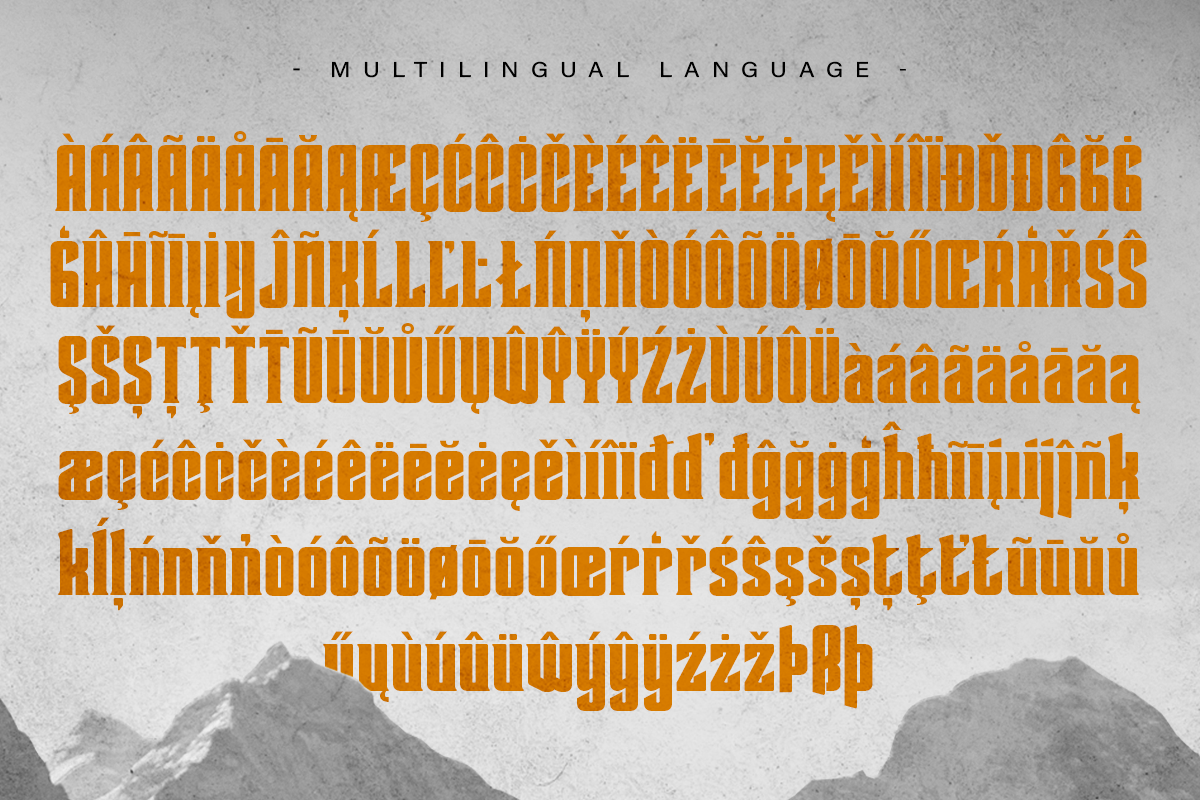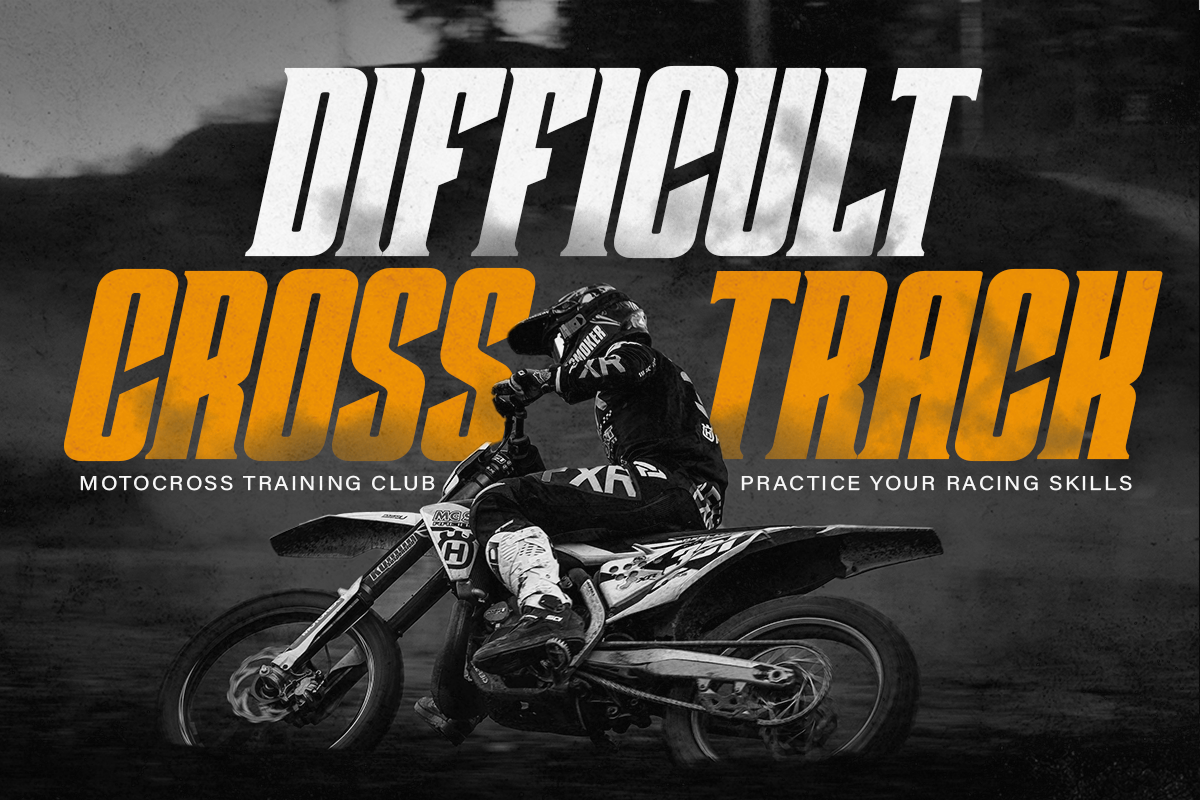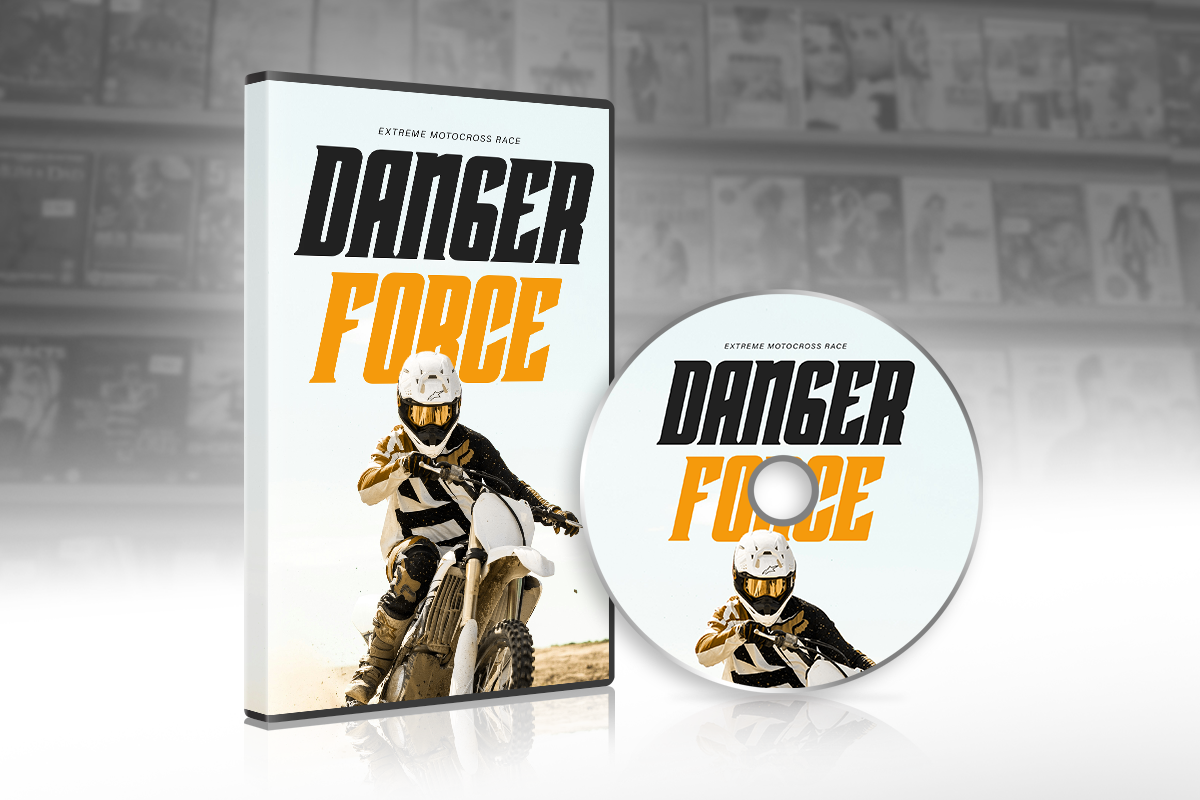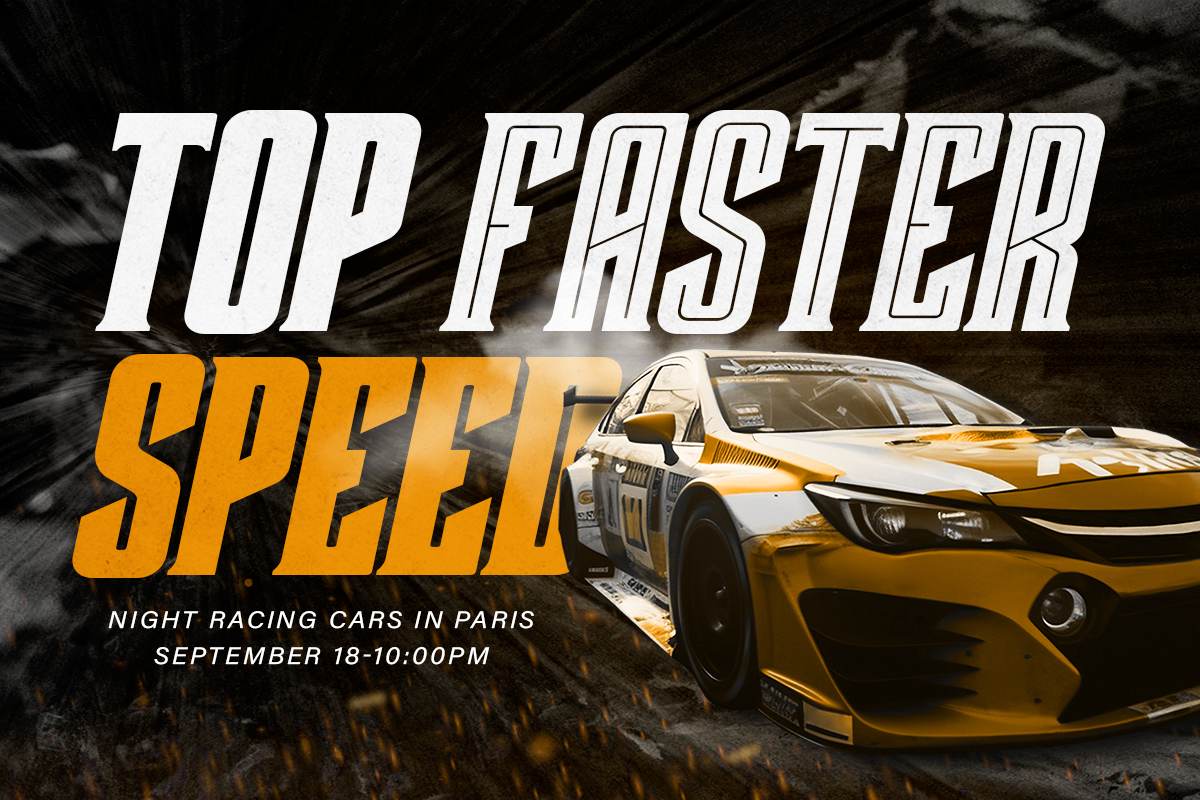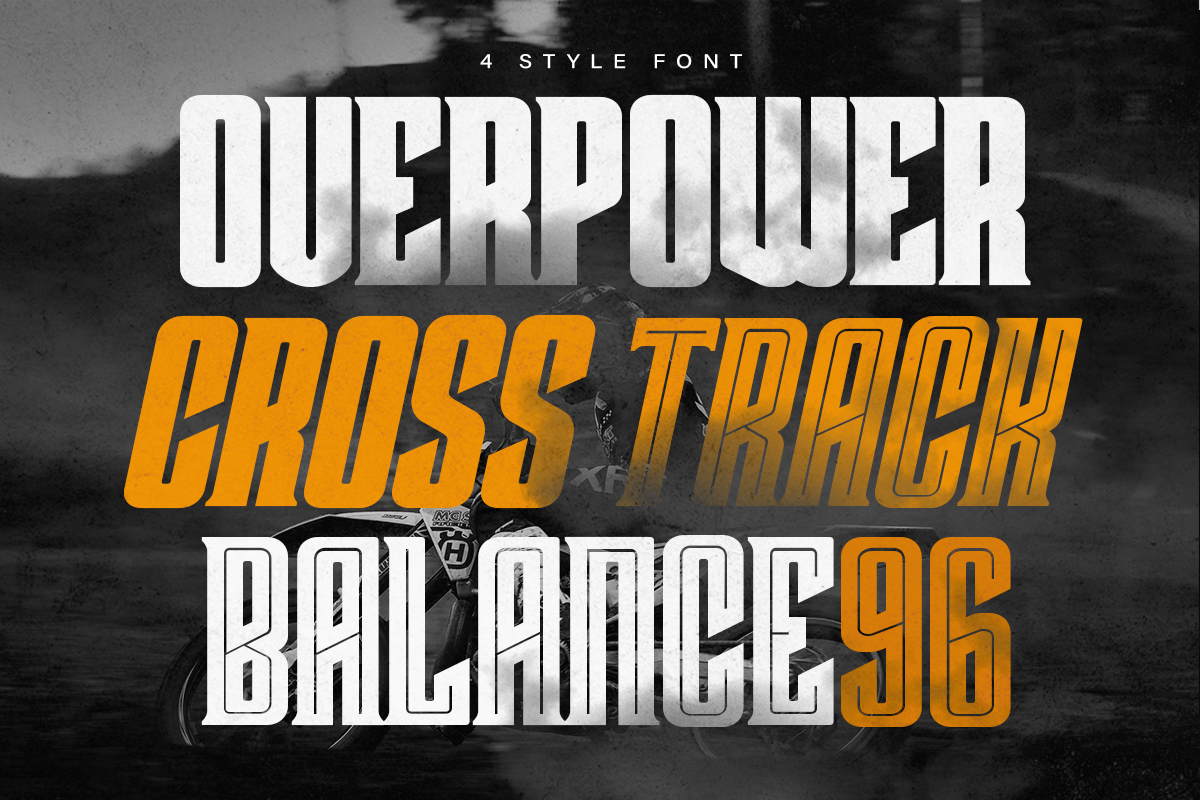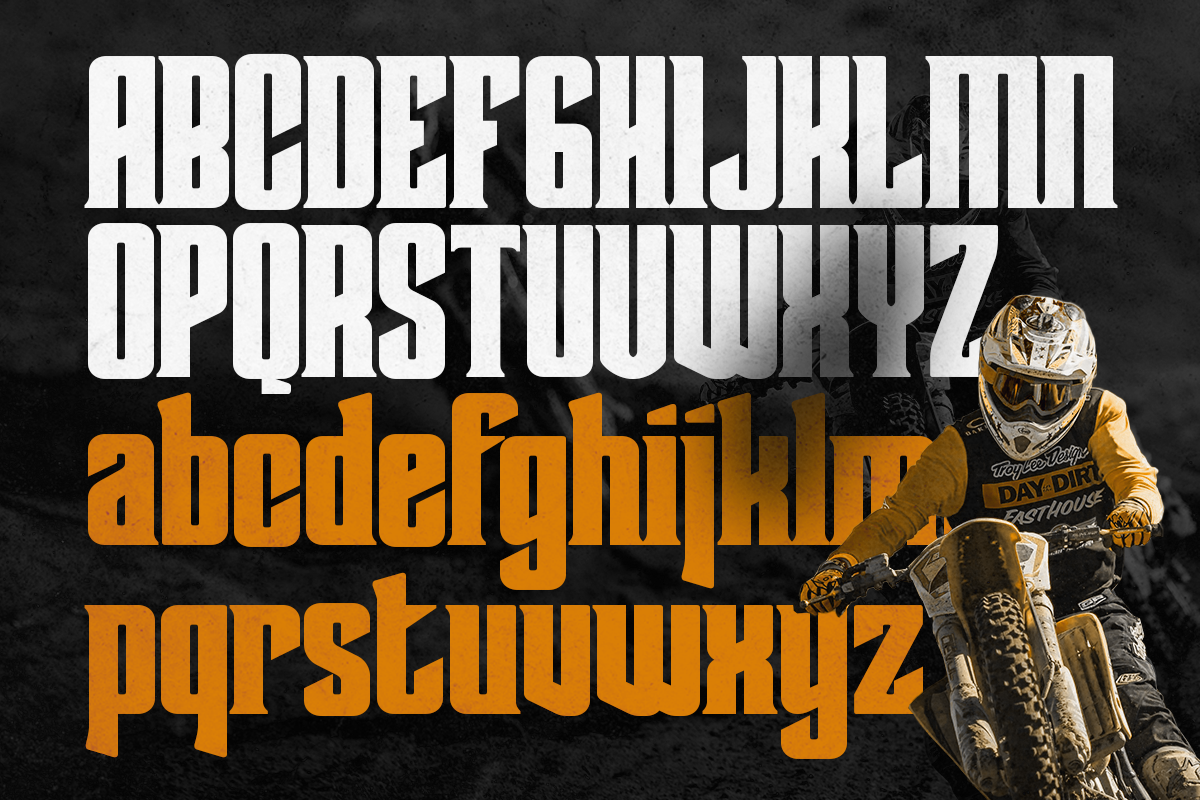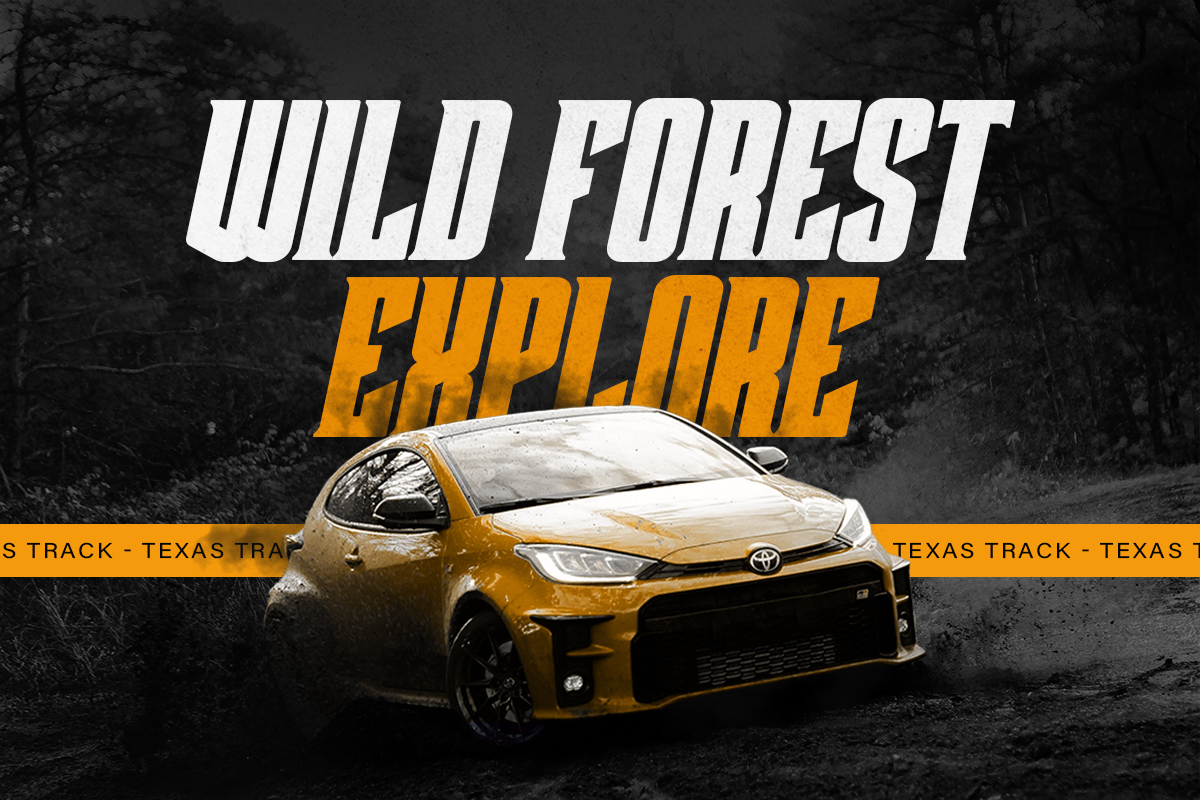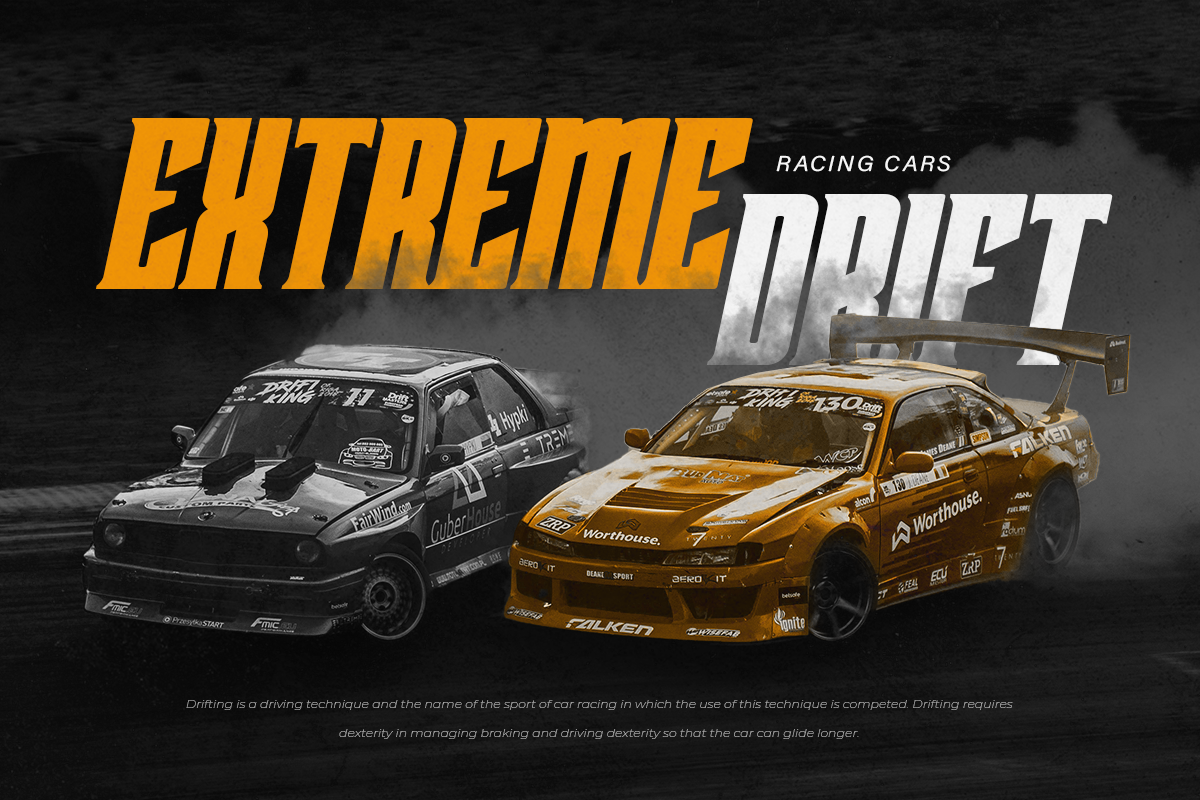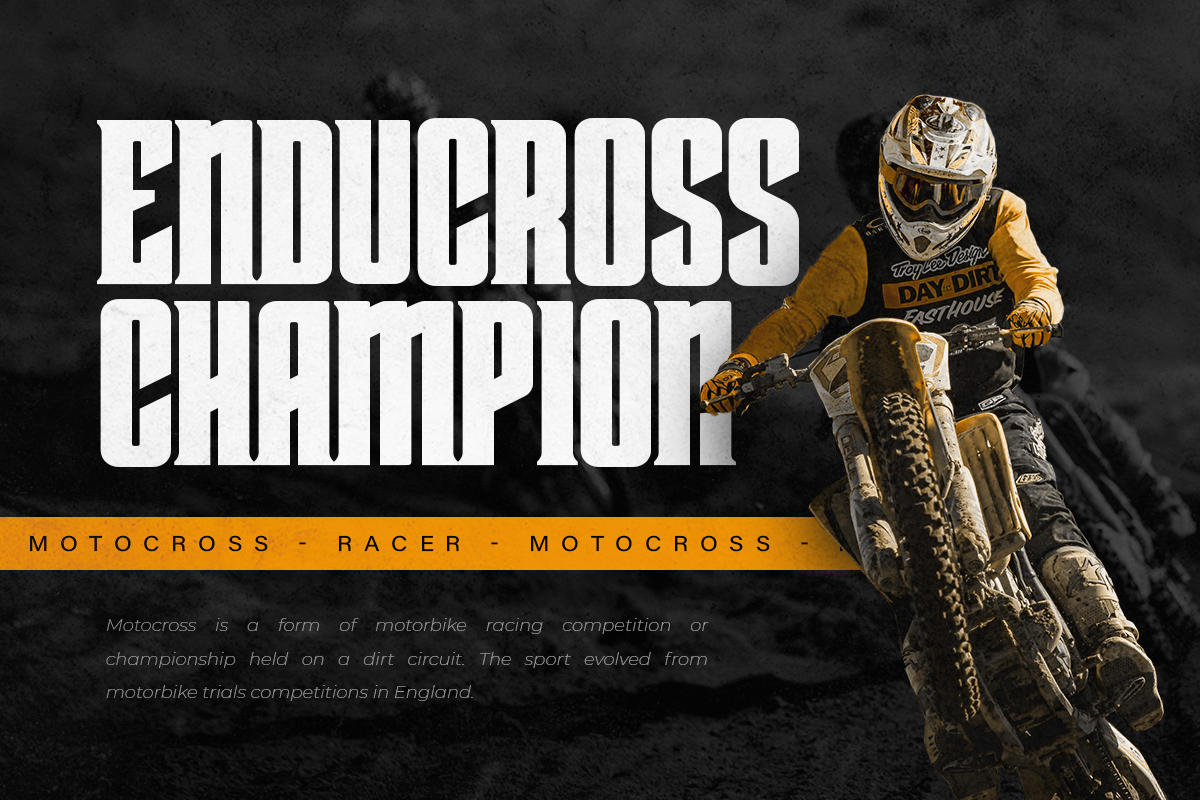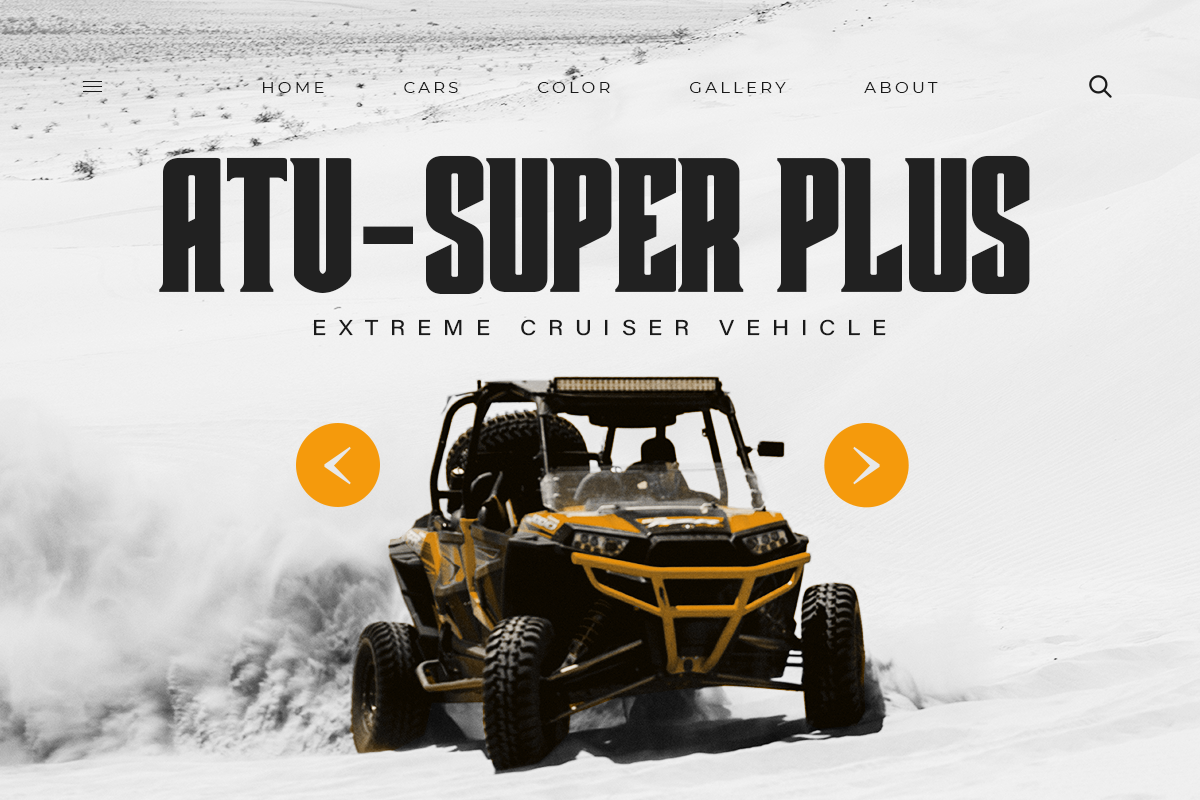
Crosride - Sport Display Font
Crosride is a bold & condensed display font that is inspired by sports. Ideal for fast car racing sports titles, running matches, cycling, automotive game logos and monograms or other modern dynamic text. Runner compare favorably with legibility and size, creating the effect of power and speed. Designed as a fast and dynamic font, but with a slightly different font design
Crosride regular
Crosride Oblique
Crosride Inline (free)
Crosride Oblique Inline
Numerals & Punctuations
Accents/Multilingual characters
ligature